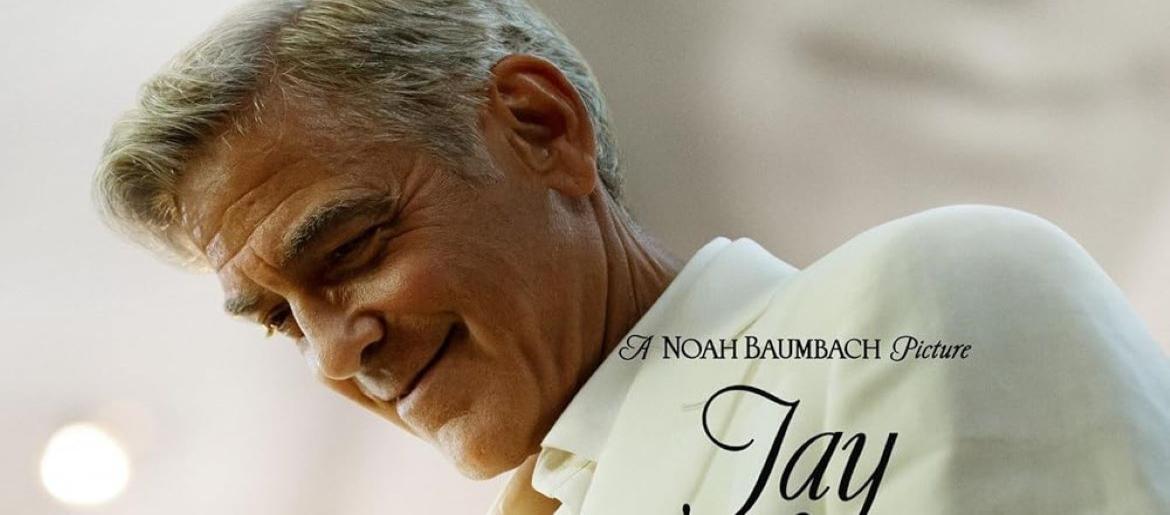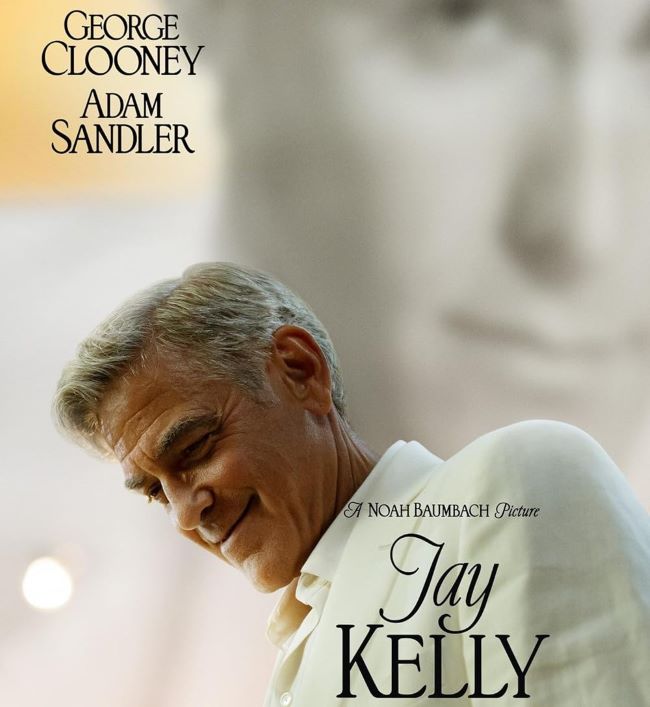
The Jay Kelly font is a bold and modern typeface that captures attention with its sleek lines and balanced design. I think what makes this font so appealing is the way it combines contemporary style with a touch of individuality. Its clean shapes give it a professional look, while subtle creative details keep it from feeling too rigid or ordinary. I couldn’t find the exact font there are a few free and premium fonts to consider.
Jay Kelly Font
Whether you’re working on a striking logo, a stylish magazine cover, or digital artwork, the Jay Kelly font delivers a polished yet approachable aesthetic. I like how it feels fresh without being overly trendy, which makes it versatile for projects that need both impact and longevity.
From a design perspective, the Jay Kelly font is easy to read but never boring. Its smooth curves and well-spaced letters make it perfect for headlines, titles, and branding where clarity and style are equally important. It’s the kind of font that stands out while still letting the content shine, which is why designers often gravitate toward it.